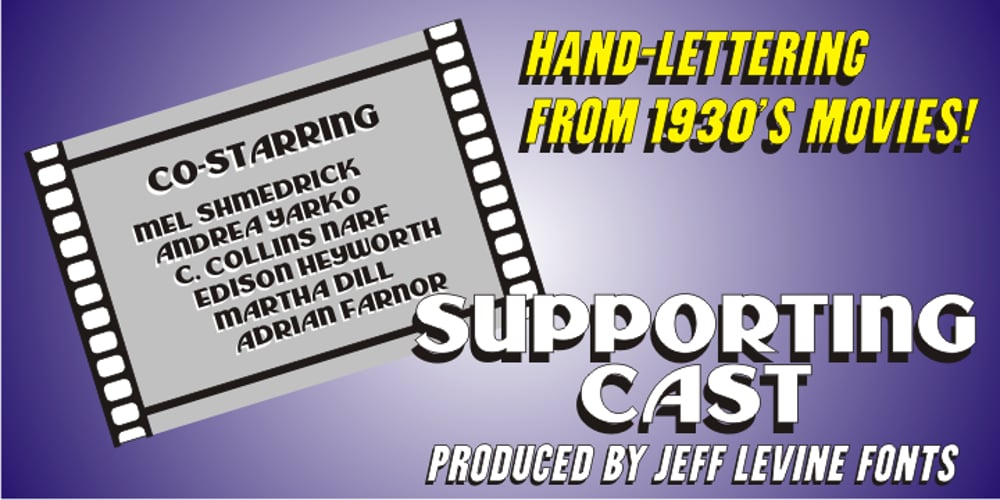
Supporting Cast JNL Font Family was designed by Jeff Levine and published by Jeff Levine. Supporting Cast JNL contains 1 styles and family package options. Supporting Cast JNL is a hybrid of similar designs for hand lettering found on title cards from two morality photoplays from 1936 dealing with drug abuse, “Cocaine Fiends” and “Marihuana” respectively. The films were produced with the hope of educating the public against the dangers of illicit drugs, but they have taken on a cult status because of the dated approach to the problem. Despite all this, it is the Deco-influenced hand lettering which is being celebrated in this font release, not the subject matter of the films.